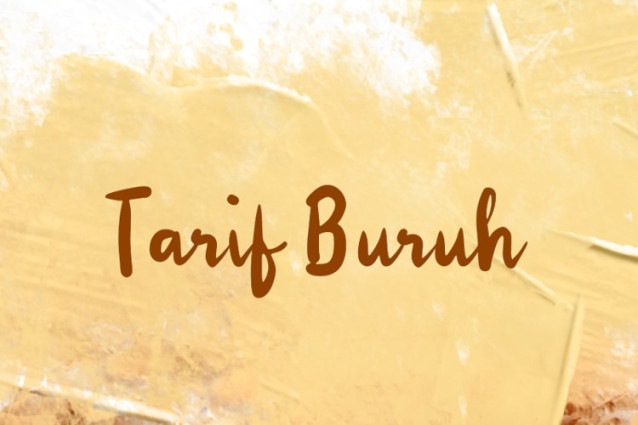
Tarif Buruh Font
Tarif Buruh Font is a handwritten brush script font. It’s perfectly suitable for logos, branding, wedding invitations, business cards, greeting cards, posters, magazines, social media, procreate font, planner prints, and websites.